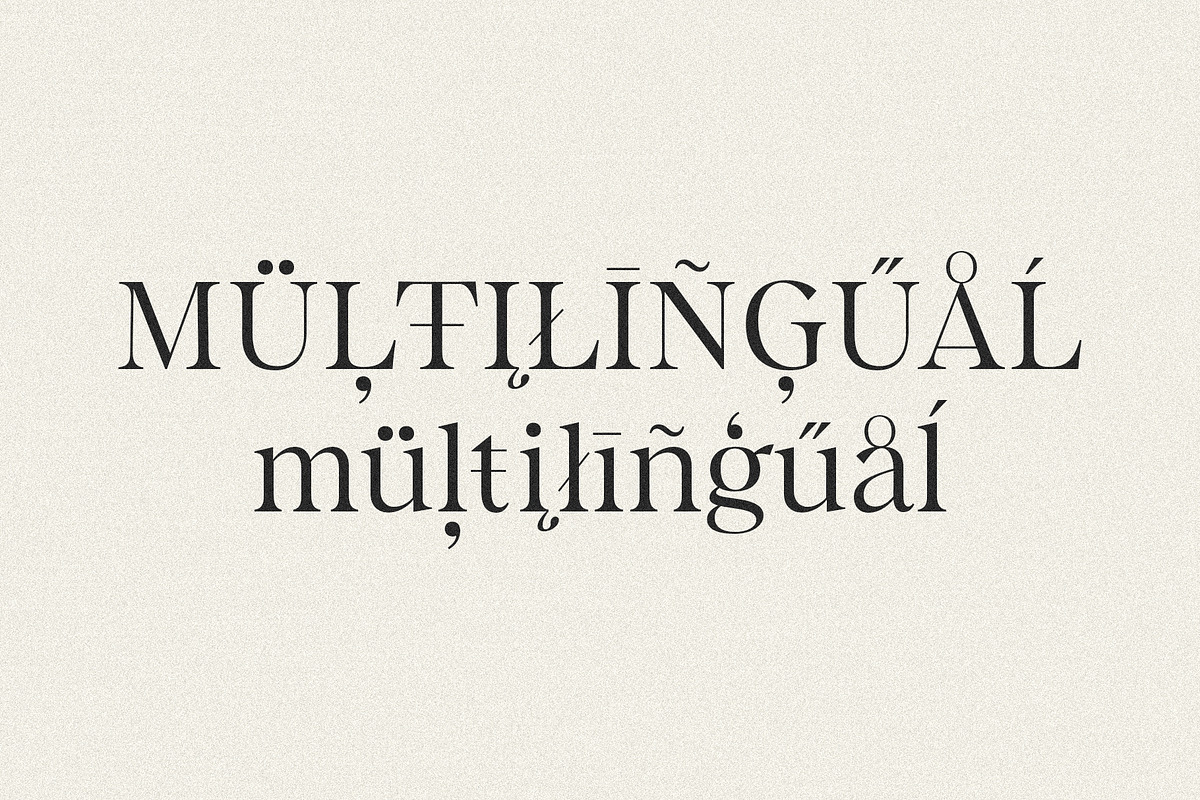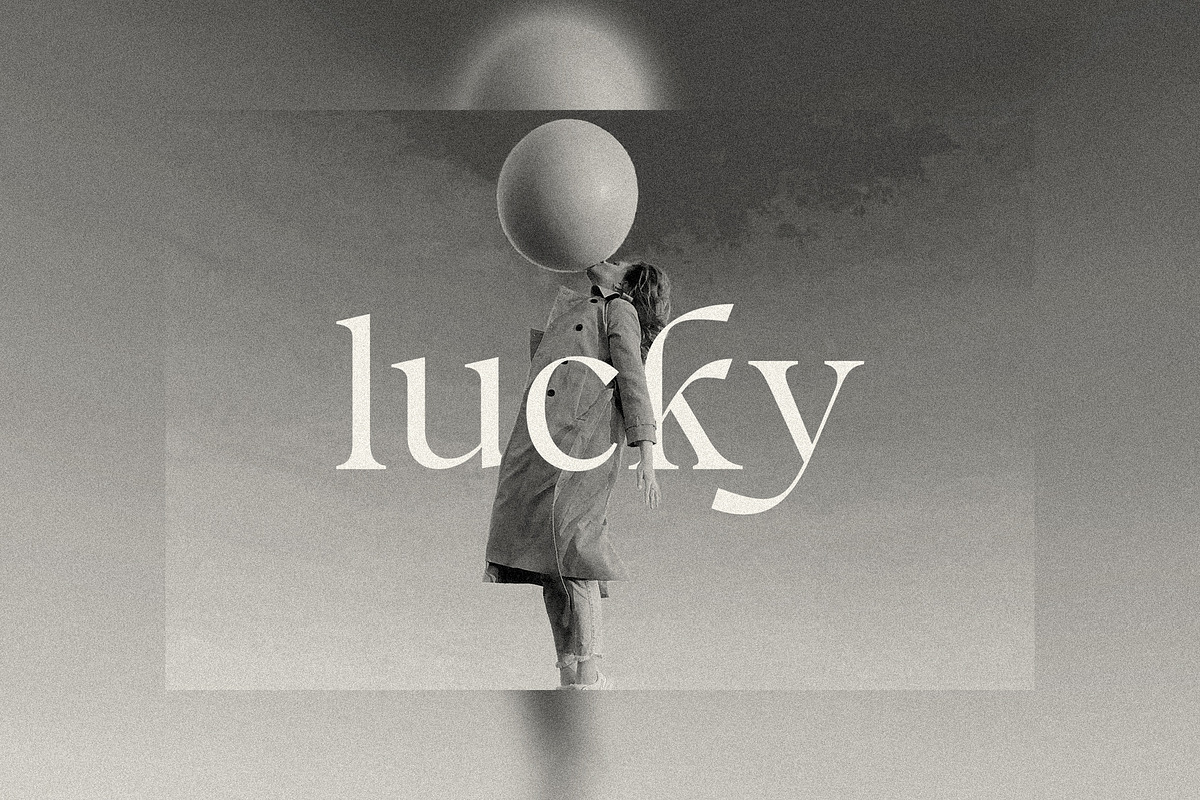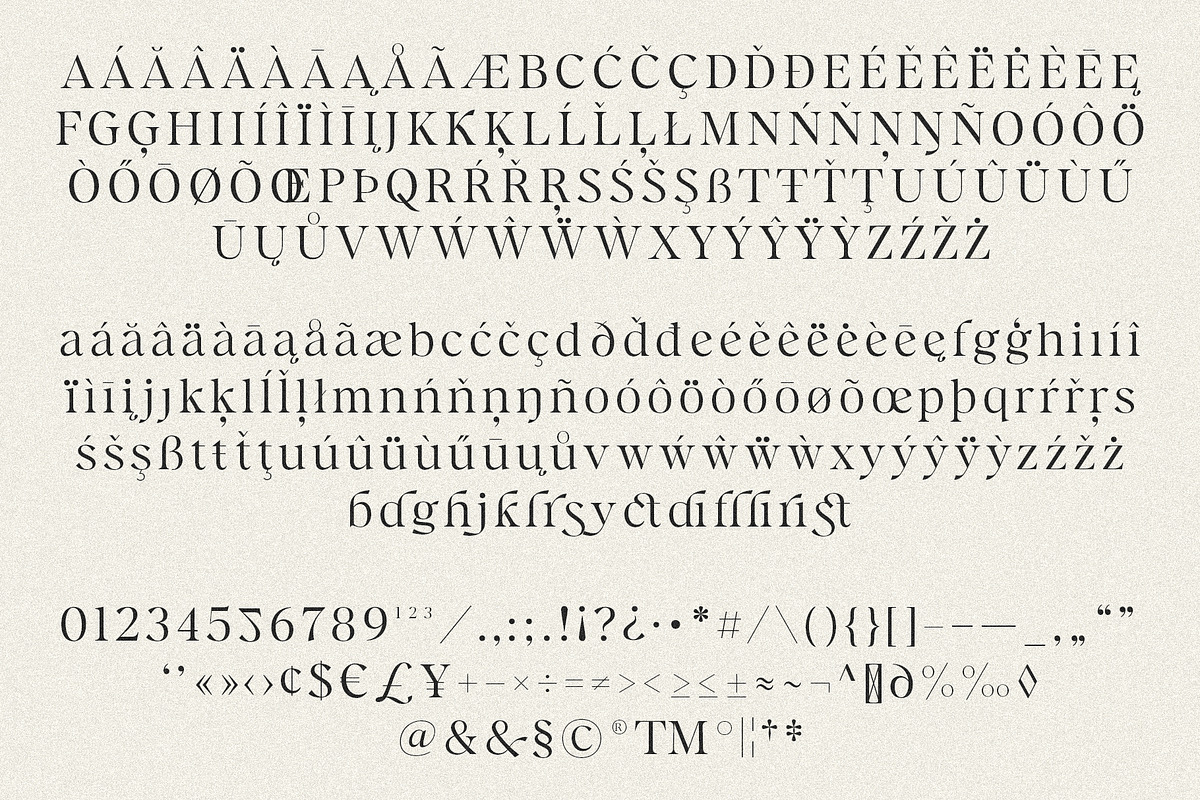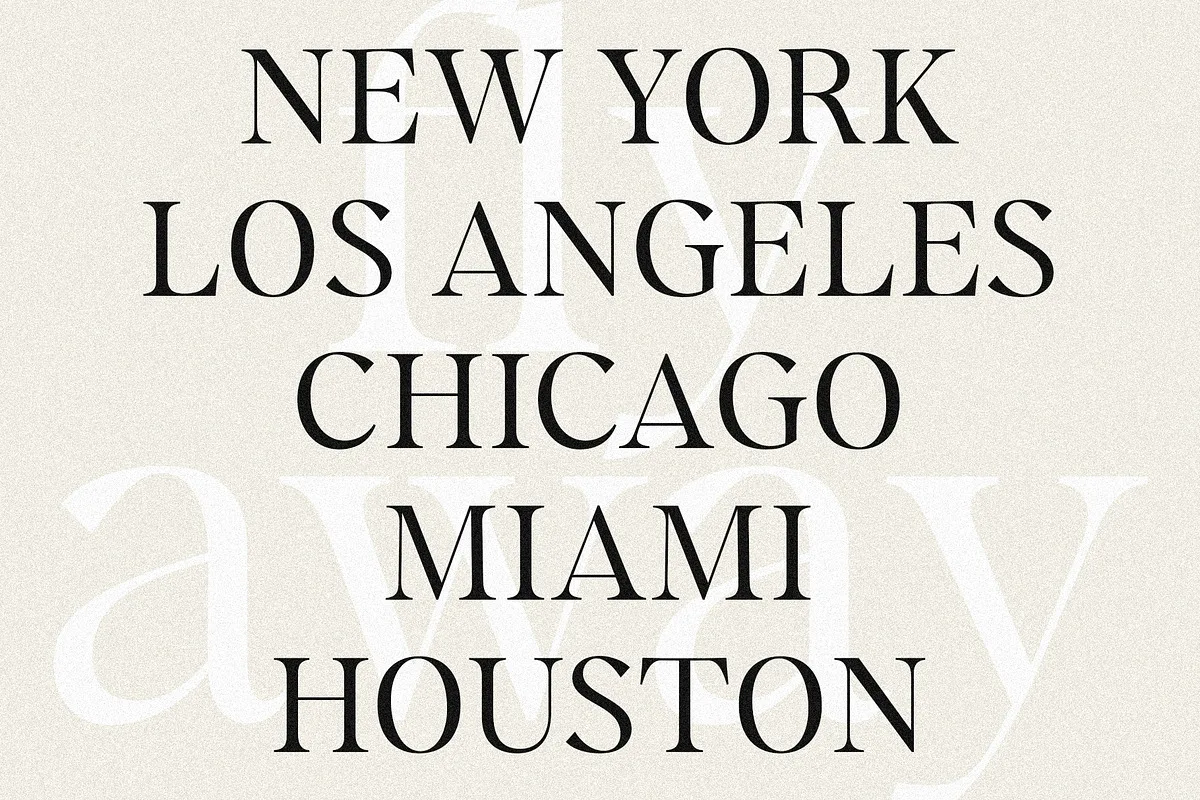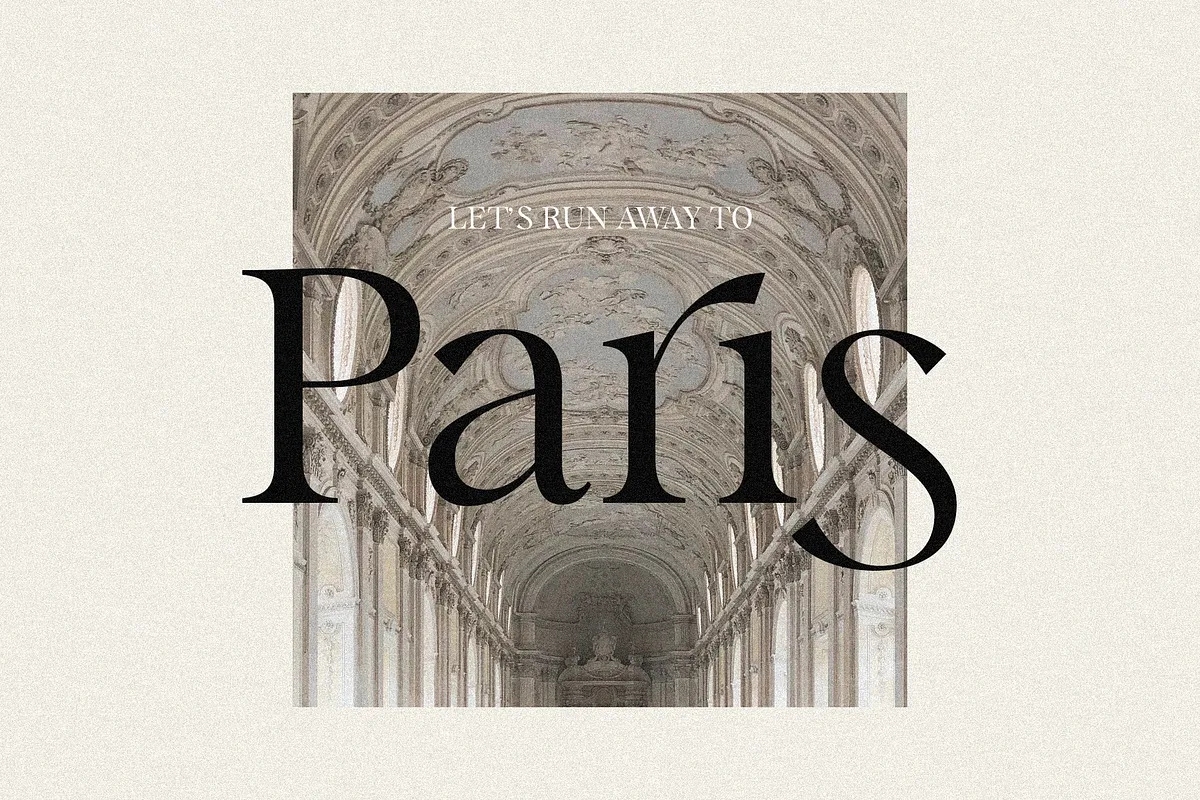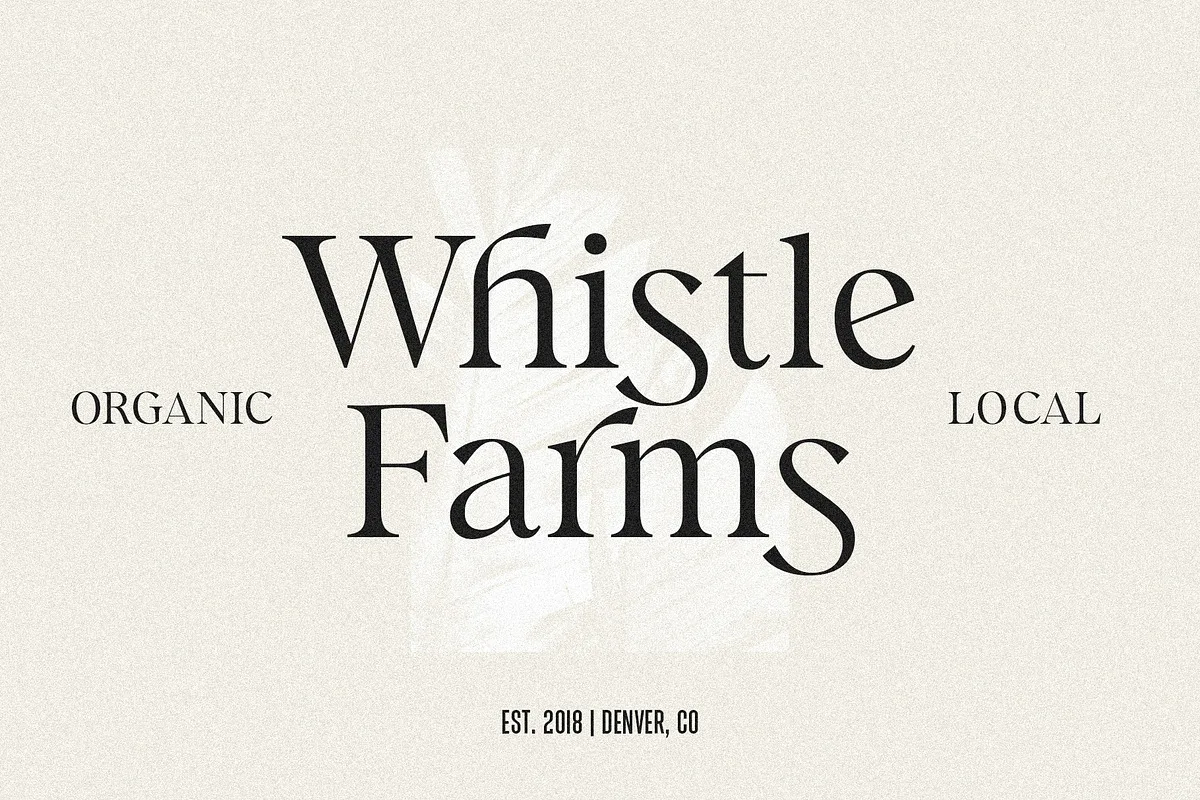
Kyrie is a luxe, calligraphic upper and lowercase display serif font that works beautifully for branding projects and quotes. Best used as a display for headings and logos, Kyrie’s clean lines, smooth curves, and true-to-form calligraphic style give any project a touch of luxury and class.
This font is highly versatile, as it works well in both standard and all-caps formats. I recommend using a mix of uppercase and lowercase letters with alternates and ligatures to create logos, and using all uppercase letters for subheadings.
For quotes, consider keeping alternates disabled for better readability, depending on the quote’s length. To achieve a look similar to the sample quote above, set a gradient image as a clipping mask over your quote text in Photoshop.